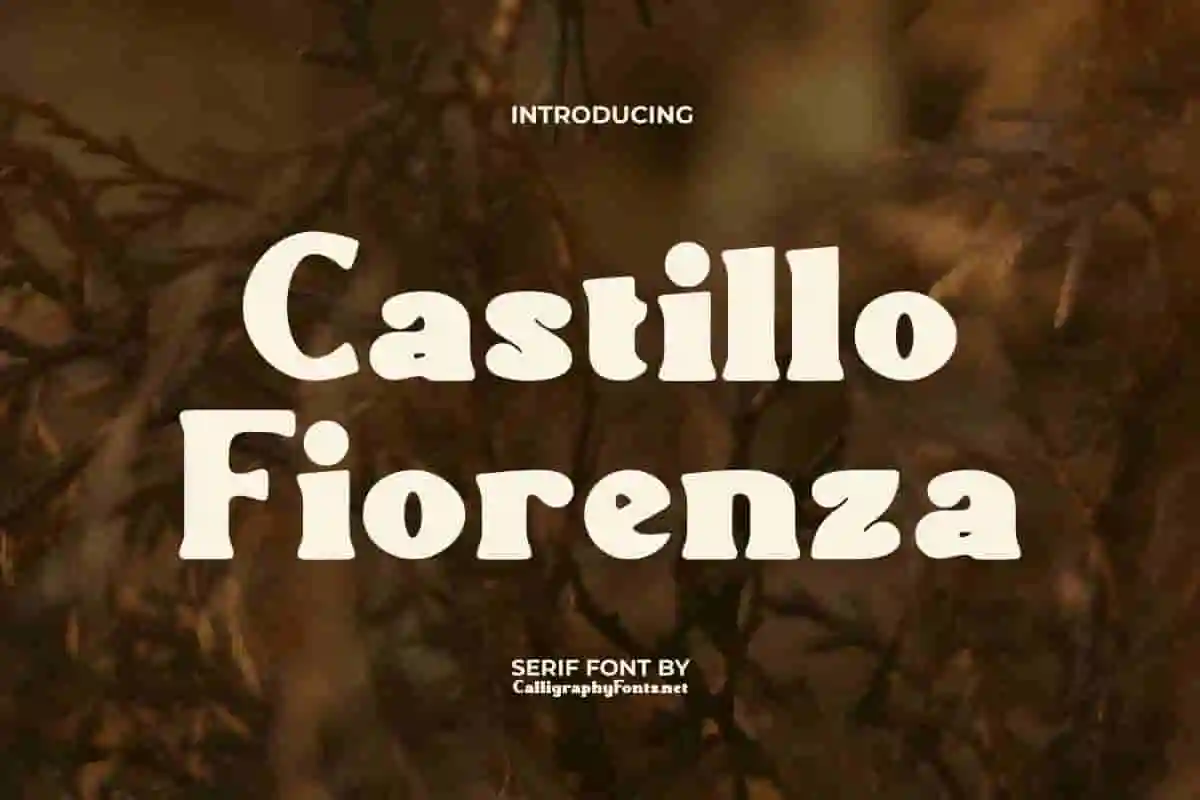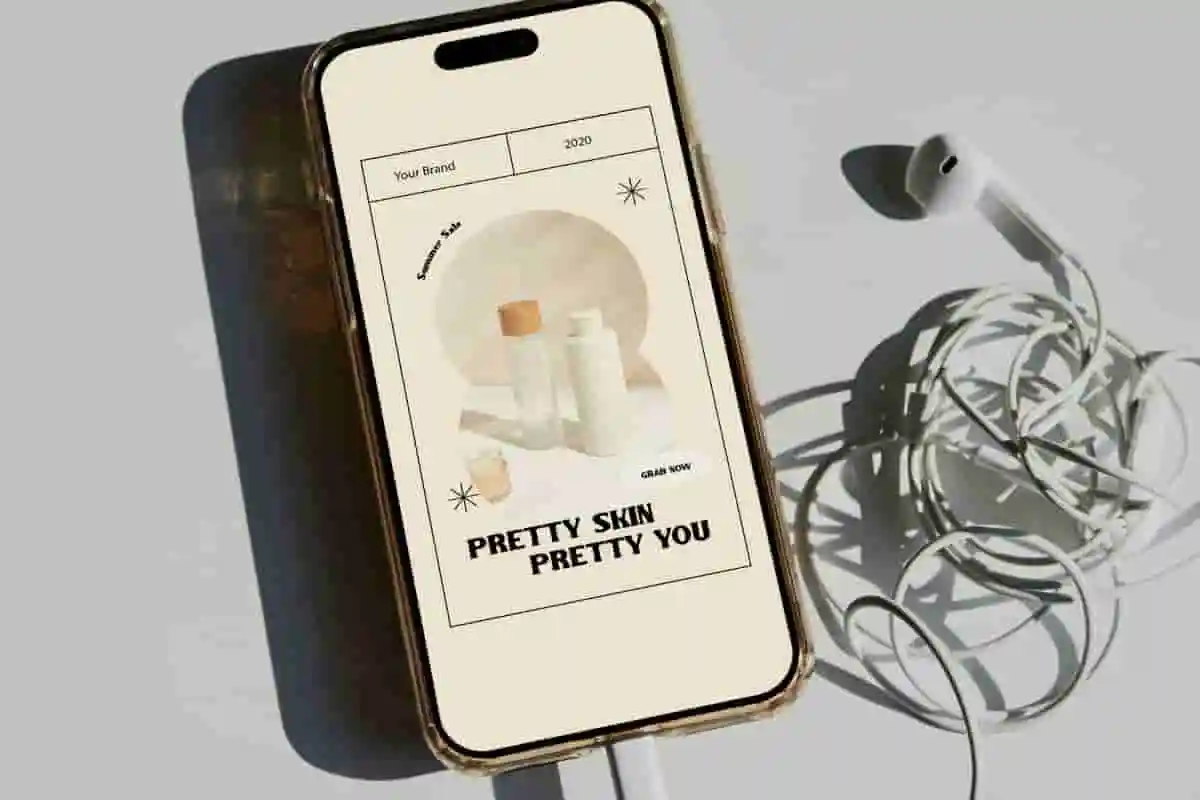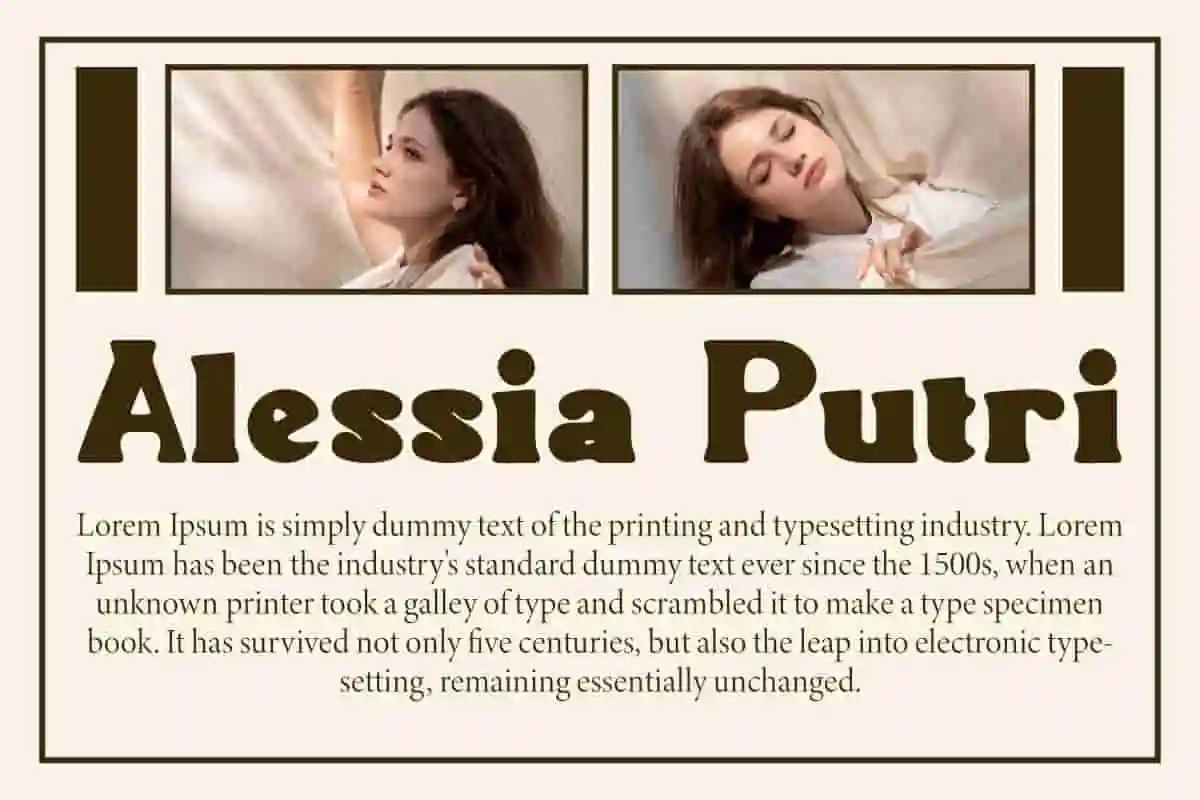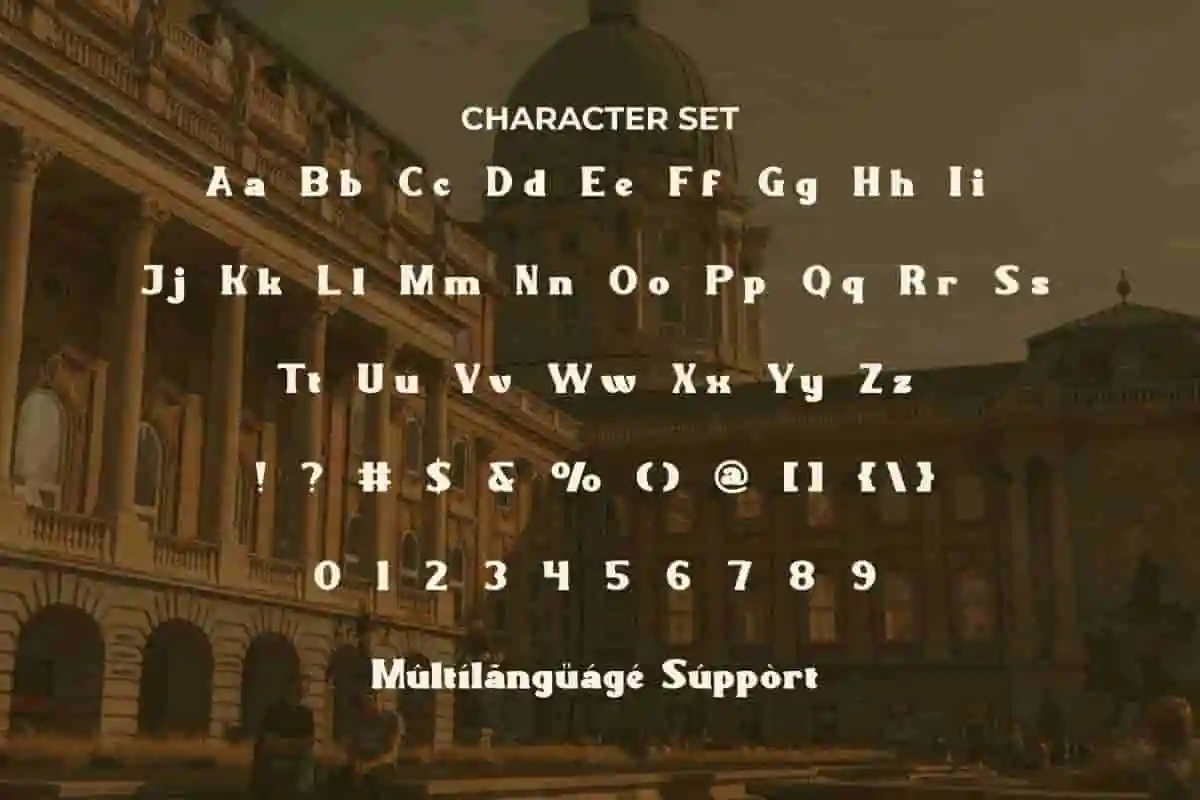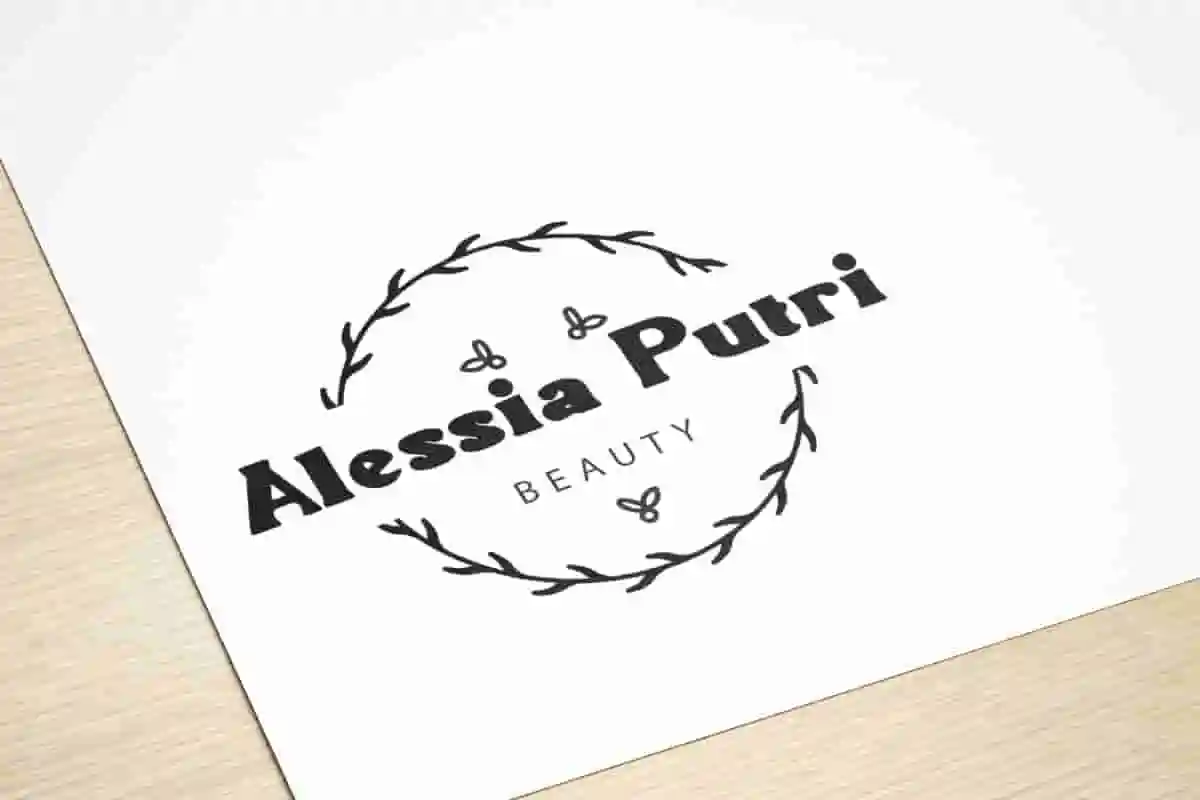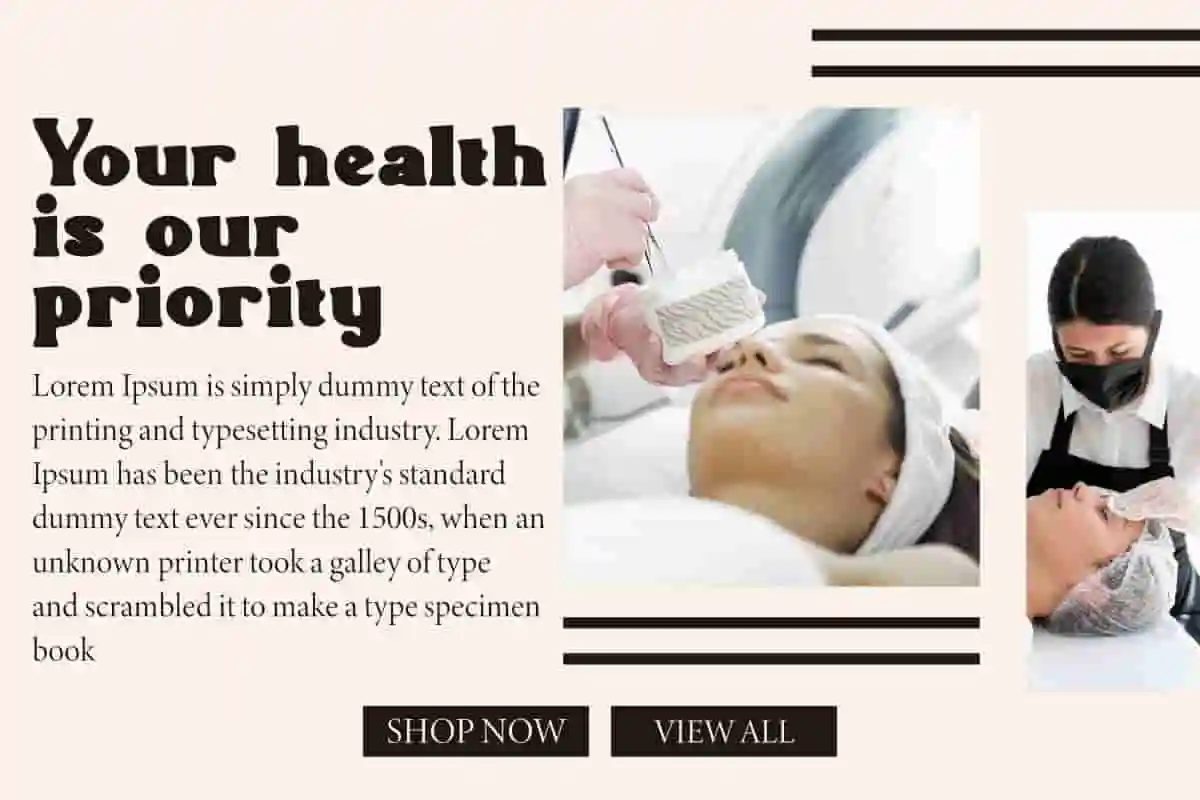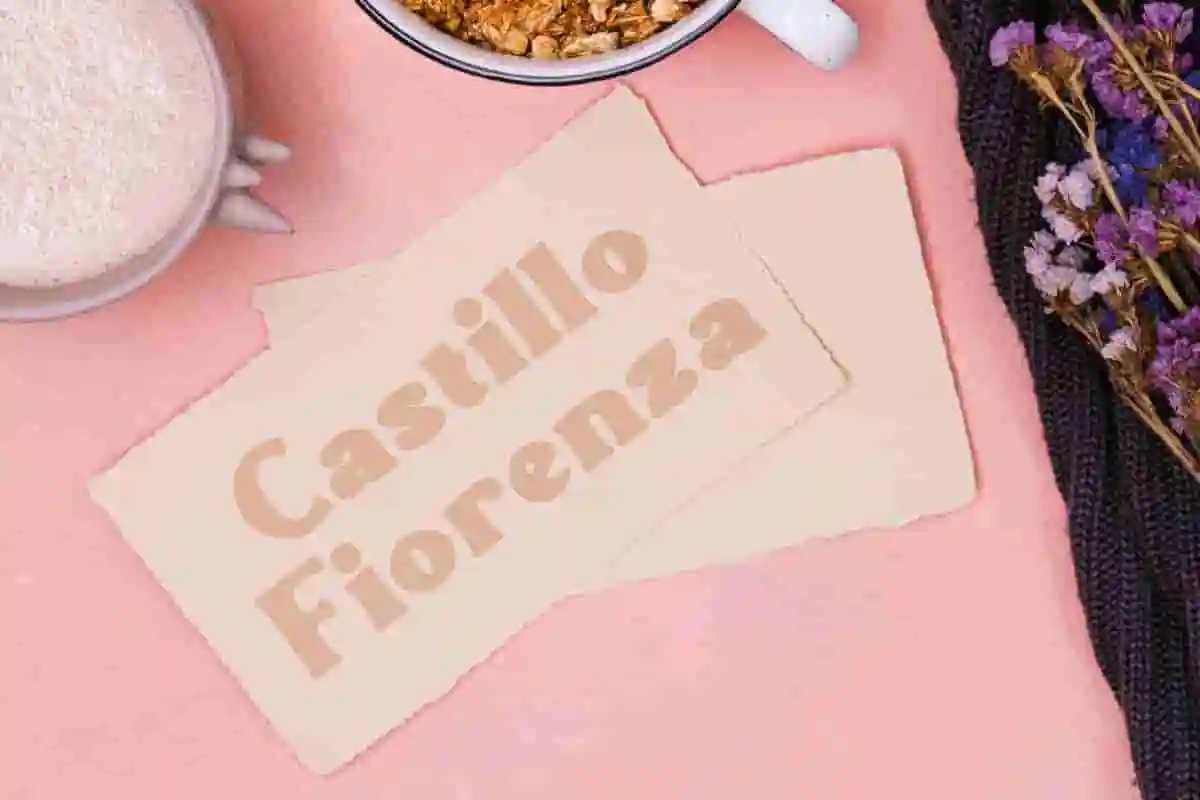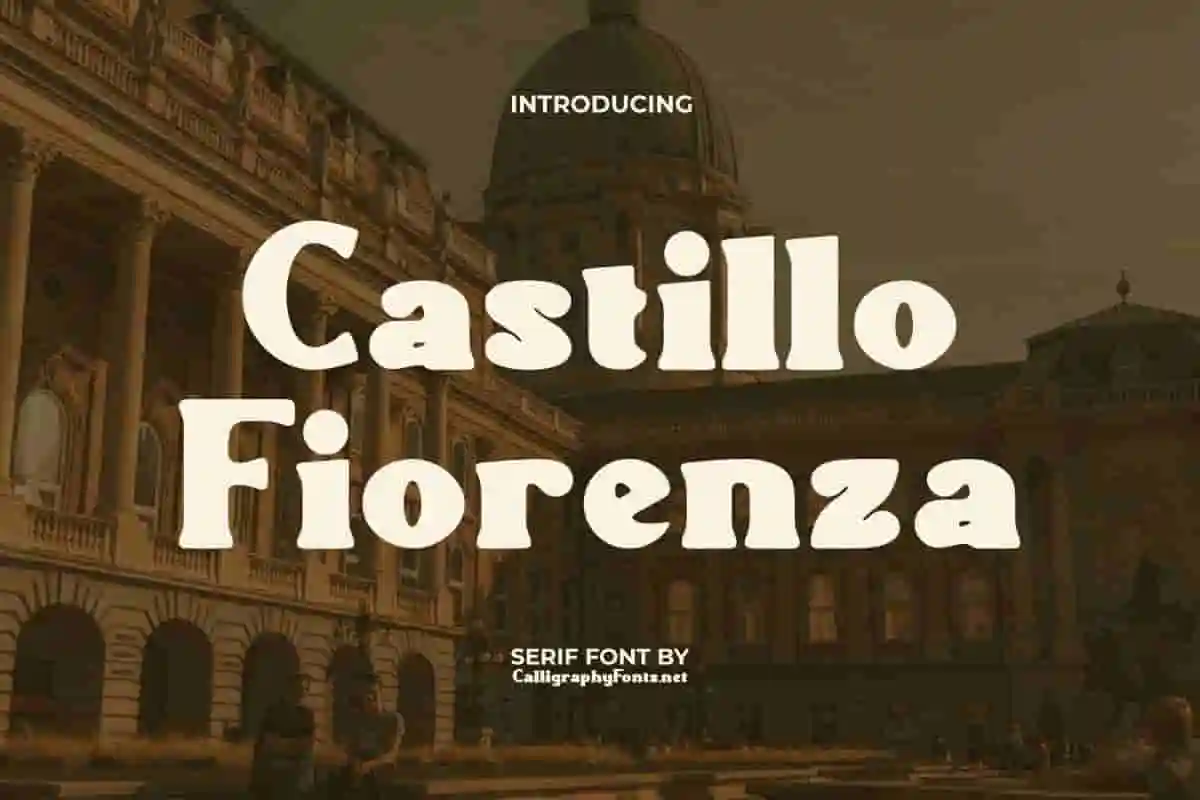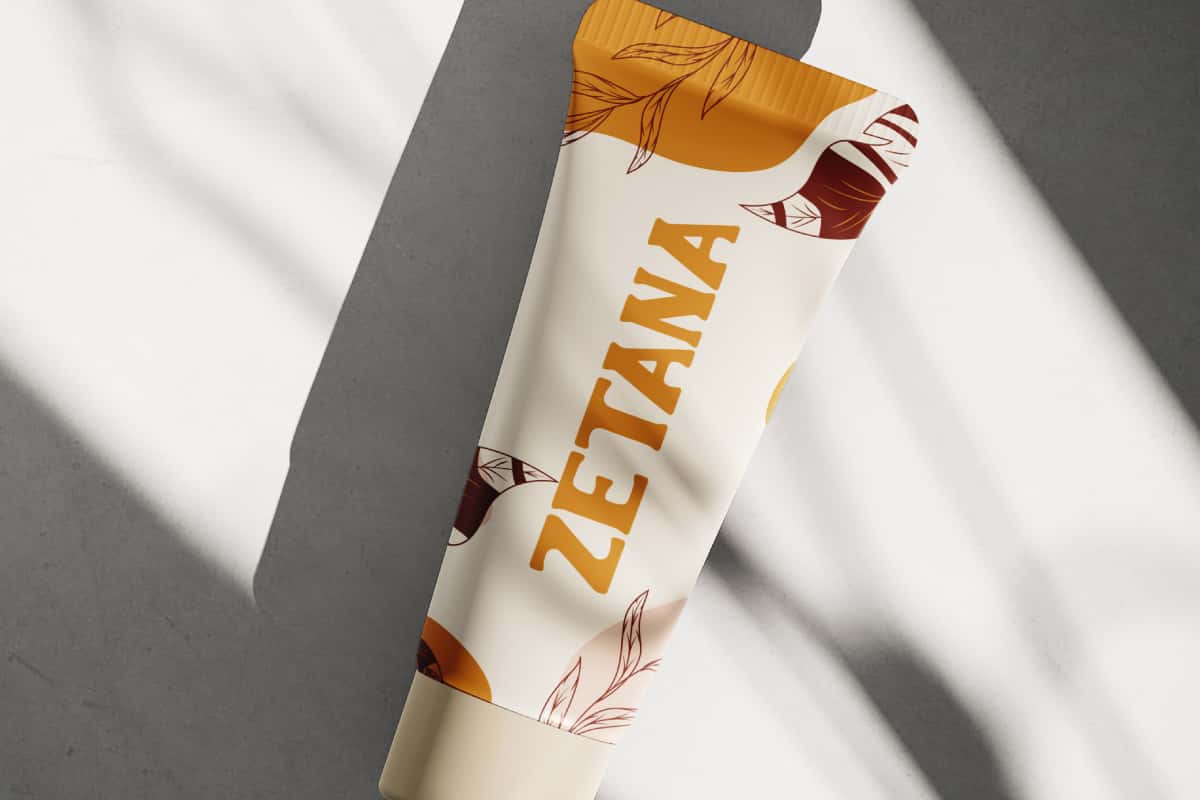
Castillo Fiorenza Font
Castillo Fiorenza Display Font is a classic serif look that presents an old aesthetic with a more contemporary look. Use this font style to capture the essence you want by exploring each character and uniting!
Castillo Fiorenza Font is a classic retro serif display font. Inspired by the 70s vibes, it is ideal for bringing a timeless aesthetic and nostalgic space to your digital and print compositions. This font can be used for apps, badge, banners, blogs, brand logo, brochure, custom stamp, flyer, headers, heading, mockup, poster, printed materials, product packaging, quotes, social media post, stationery, template, title, websites, and much more.
Make your designs stand out with Castillo Fiorenza Display Font, a sophisticated and modern typeface crafted to balance elegance and strength. With its bold strokes, unique letterforms, and stylish flair, this font is built to create a striking visual presence that captures attention at first glance.
Perfect for logos, branding, packaging, posters, magazine covers, social media graphics, merchandise, and event promotions, Castillo Fiorenza Display Font delivers a refined yet commanding style. Whether you’re working on luxury branding, contemporary advertising, or high-impact creative projects, this display font adds professionalism and creativity to every detail.
Each character is designed with precision to maintain clarity and readability while showcasing artistic flair. Its versatility makes it ideal for both digital and print applications, ensuring your message remains bold and unforgettable across any platform.
In today’s competitive design world, your typography is your voice. Castillo Fiorenza Display Font gives your projects a voice that is strong, elegant, and memorable—helping your brand or artwork leave a lasting impression.
Castillo Fiorenza Display Font is perfect for fun vintage background designs. The most iconic typeface of the last century, ideal for making anything stand out. Let your creativity flow without limits! This font can be used for accessories and gifts, boutique, commercial item, coffee shop, event organizer, digital marketing, fashion, film, graphic designer, handicraft, interior design, movie, photography, publisher, restaurant, spa salon, web designer, and much more.